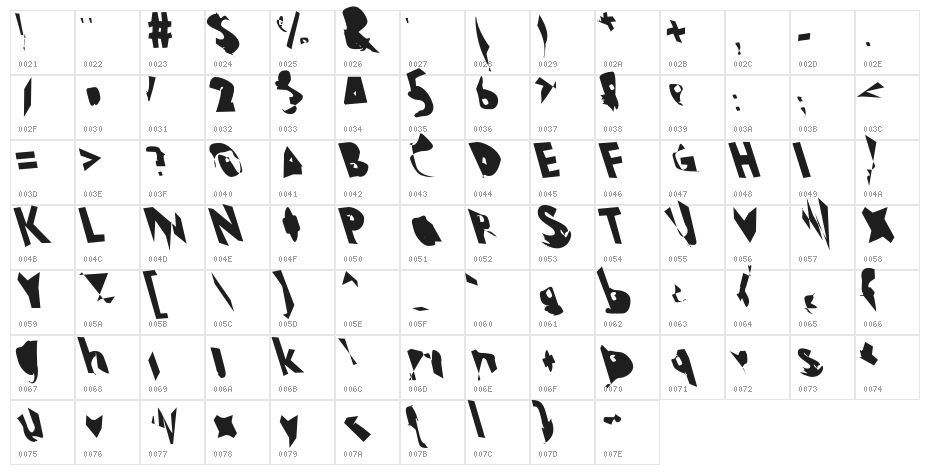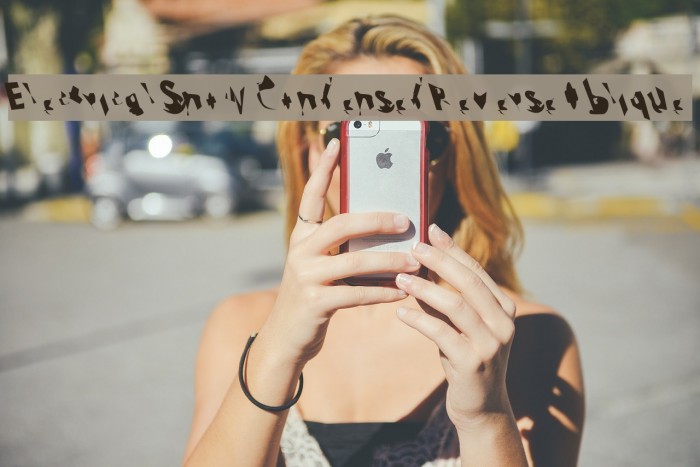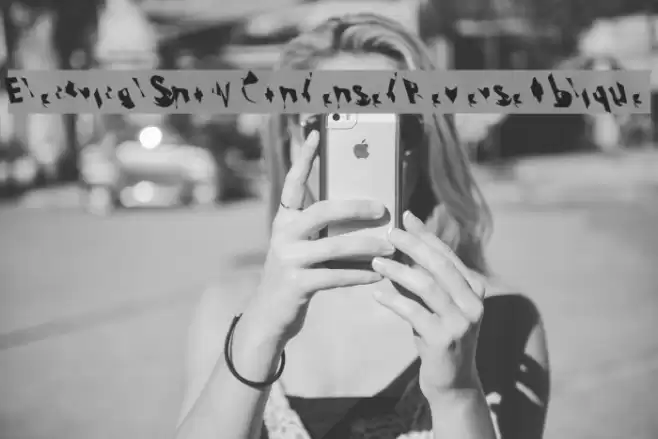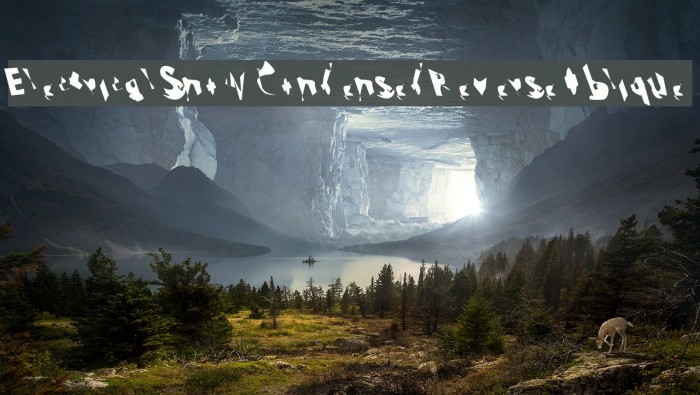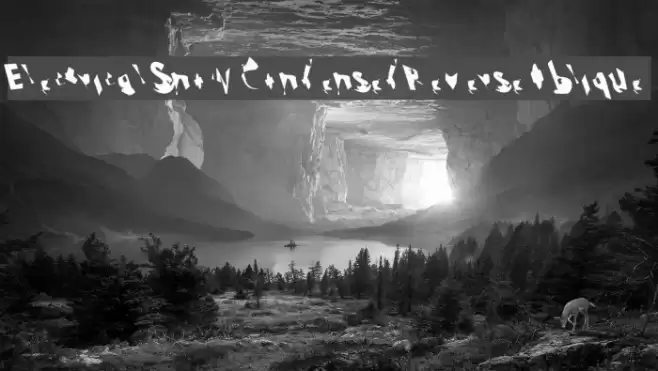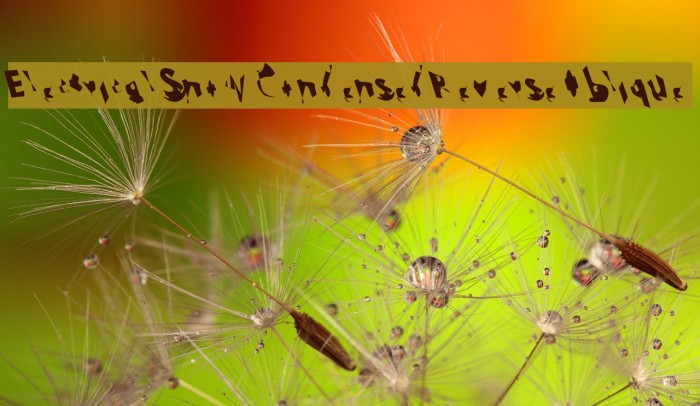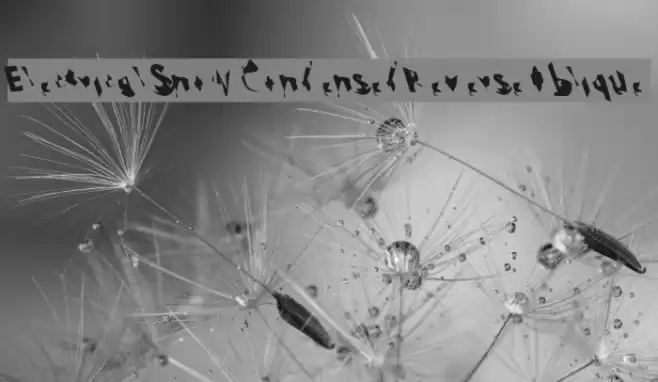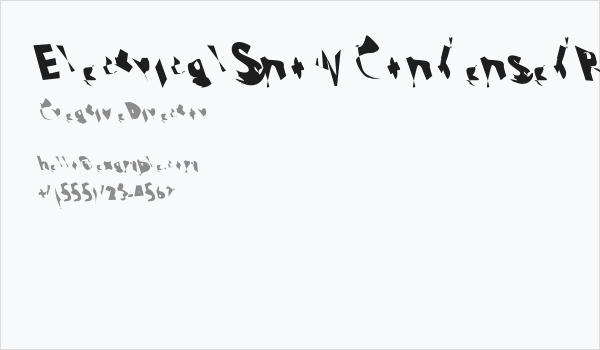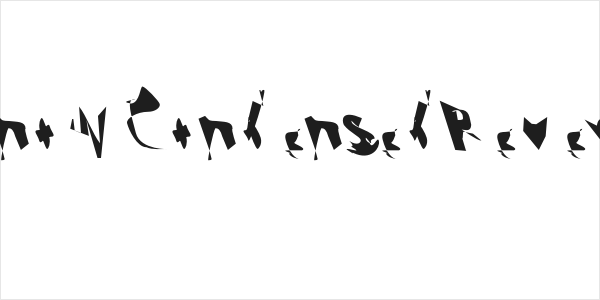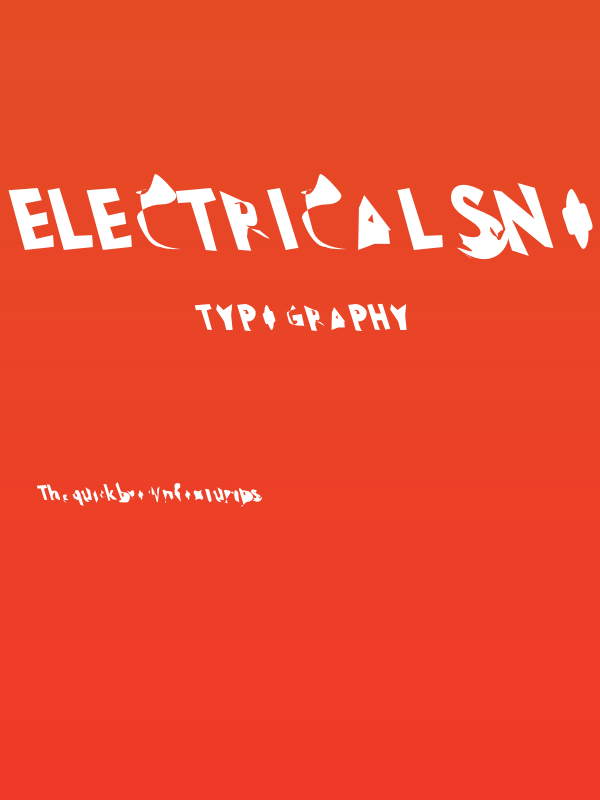
Electrical Snow Condensed Reverse Oblique Font
Electrical Snow Condensed Reverse Oblique Description
This font features a highly abstract and fragmented design, with each character appearing as if it has been shattered or distorted. The uppercase and lowercase letters, as well as numbers and special characters, maintain a consistent theme of jagged edges and irregular shapes, creating a sense of chaos and movement. The style is reminiscent of a glitch or digital distortion, making it visually striking and unique. The font's unconventional appearance suggests a modern and experimental approach, suitable for projects that aim to capture attention and convey a sense of disruption or innovation.
| Overall Style | Modern, Experimental |
| Use Case | Headlines, Posters, Artistic Projects |
| Proposed Projects | Ideal for avant-garde posters, album covers, digital art projects, or any design that seeks to convey a sense of disruption or innovation. |